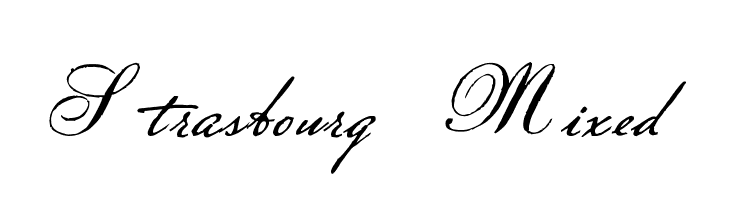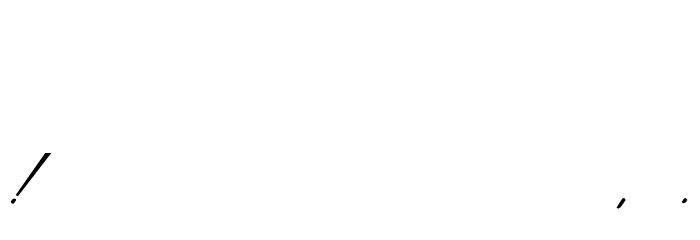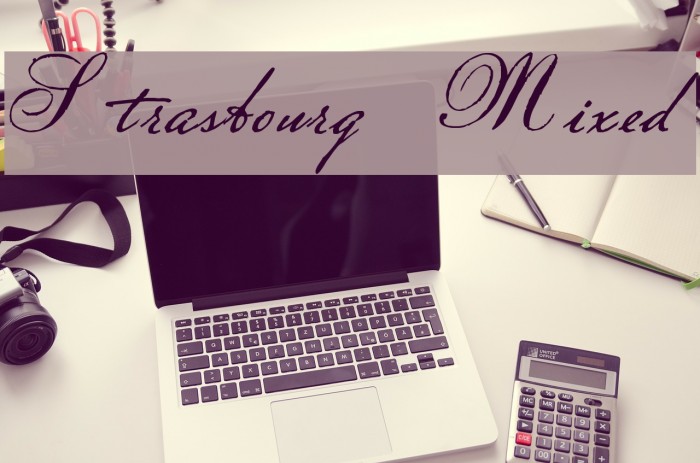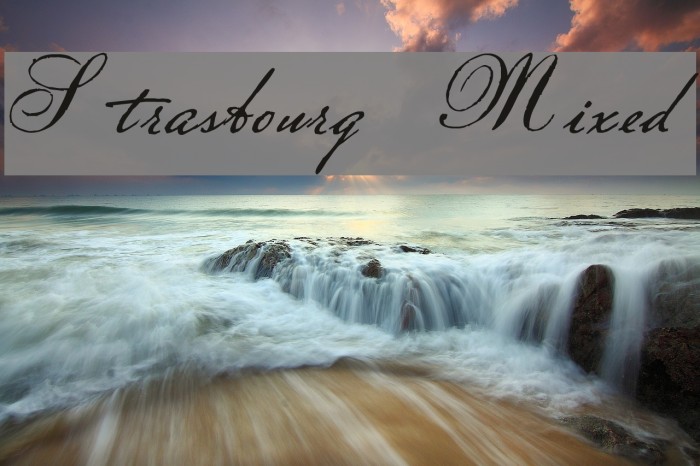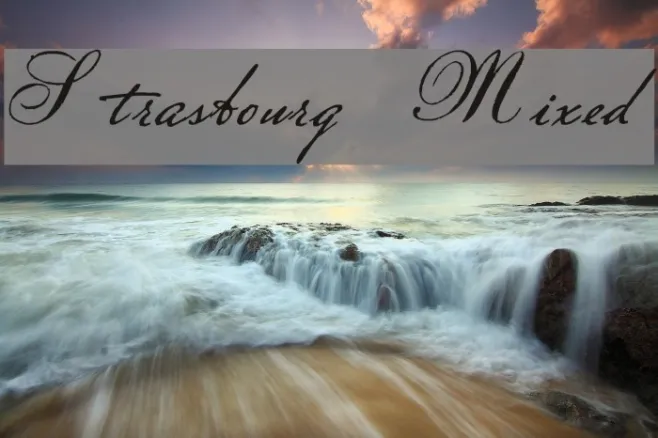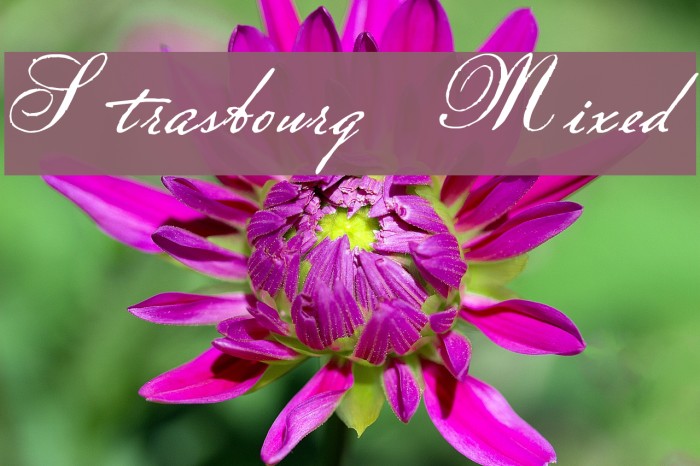
Strasbourg Mixed Font
Strasbourg Mixed Description
This font features a sophisticated and elegant script style, characterized by its flowing, cursive letters. The uppercase letters are ornate and decorative, with intricate loops and flourishes that add a touch of classic elegance. The lowercase letters maintain a consistent slant and are connected, creating a seamless, handwritten appearance. The font's overall aesthetic is reminiscent of traditional calligraphy, making it suitable for formal and decorative applications. The special characters, such as punctuation marks, are designed to complement the script style, maintaining the same level of elegance and fluidity.
| Overall Style | Classic |
| Use Case | Headlines, Invitations, Decorative text |
| Proposed Projects | Ideal for wedding invitations, formal event programs, elegant branding, and decorative certificates. |